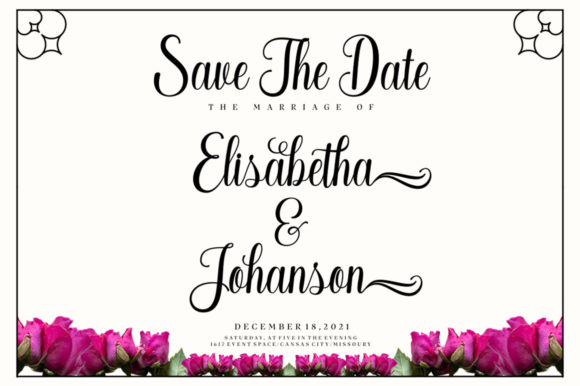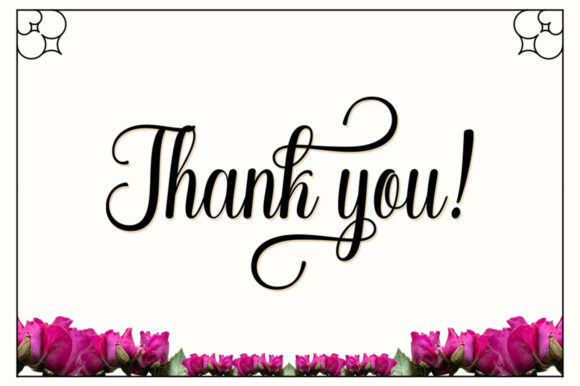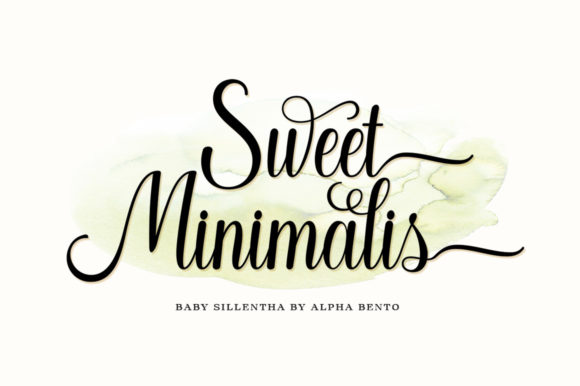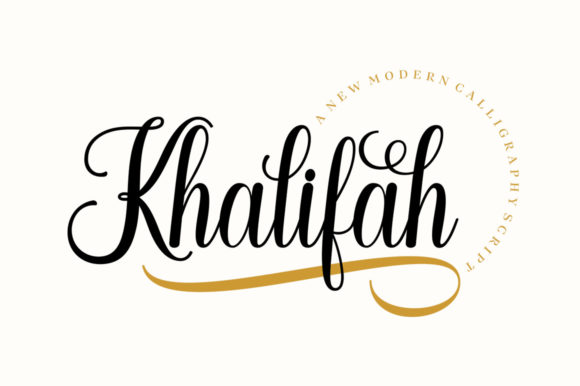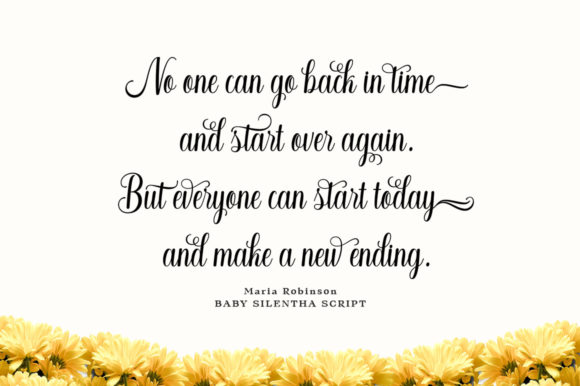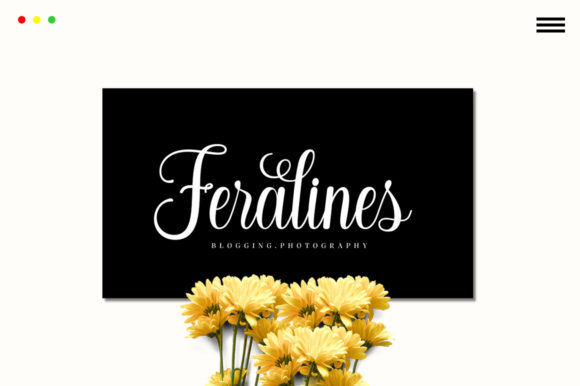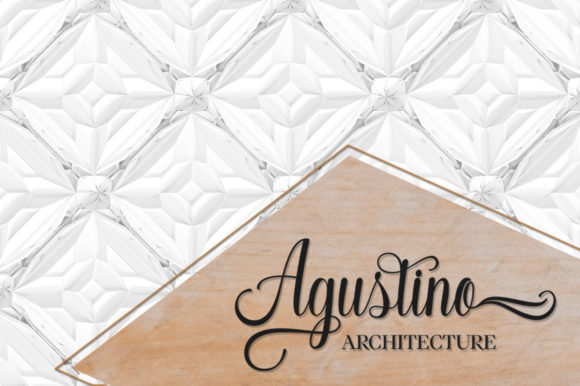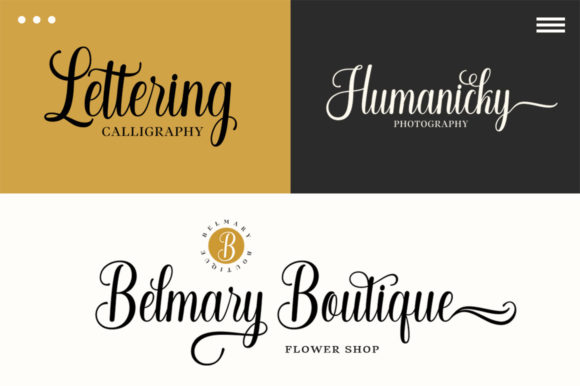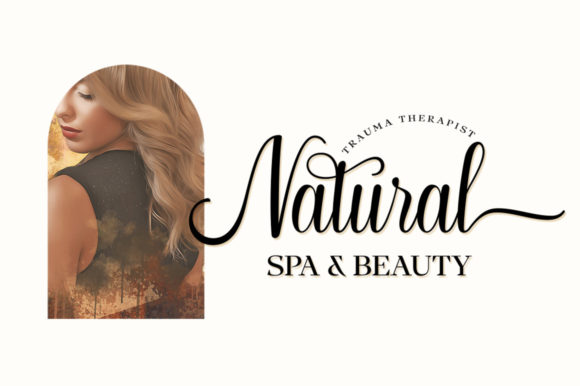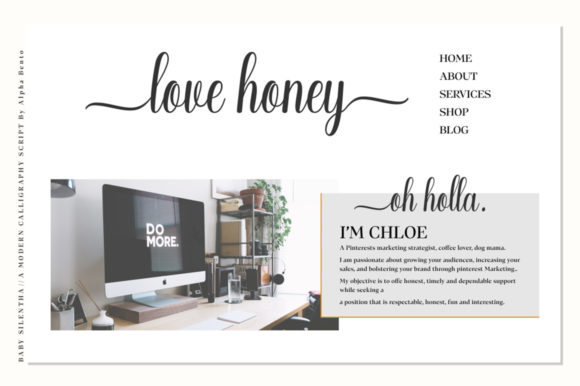
Baby Sillentha Script Font
About Baby Sillentha Script Font
Baby Sillentha Script is a well-balanced and timeless handwritten font. It is the best choice for creating eye catching logos, branding and quotes. Every letter has a unique and beautiful touch, which will make your design come alive!